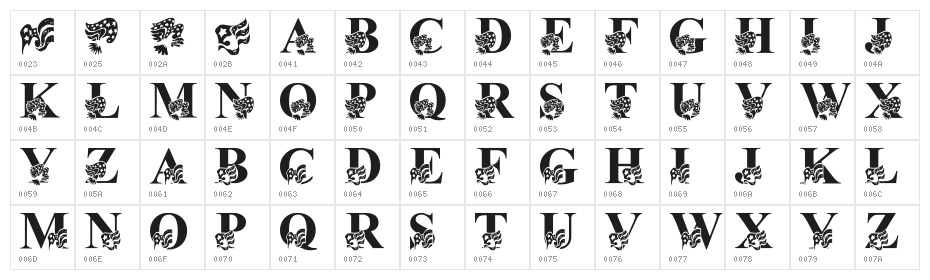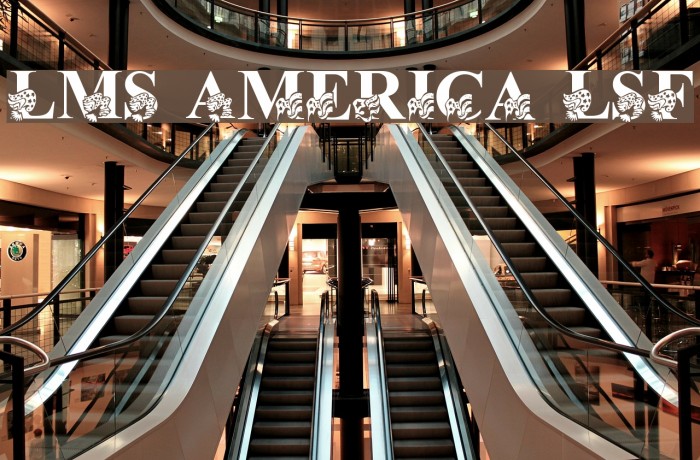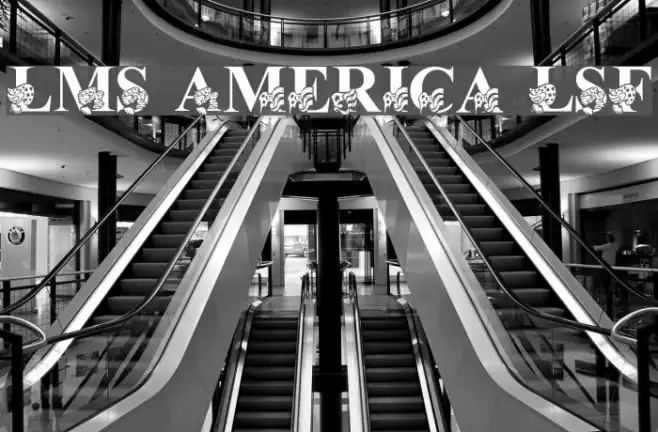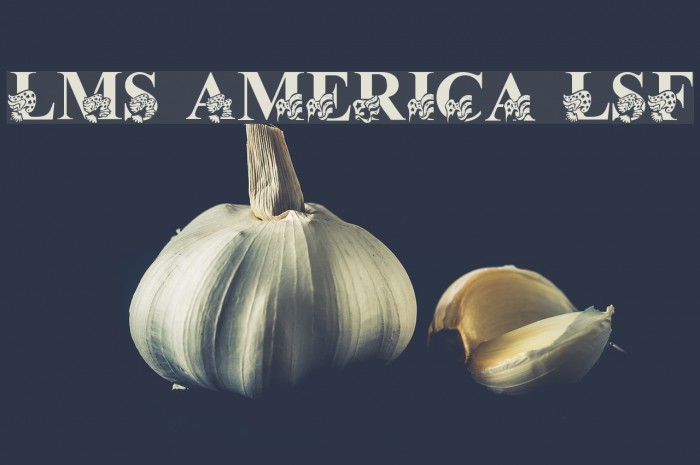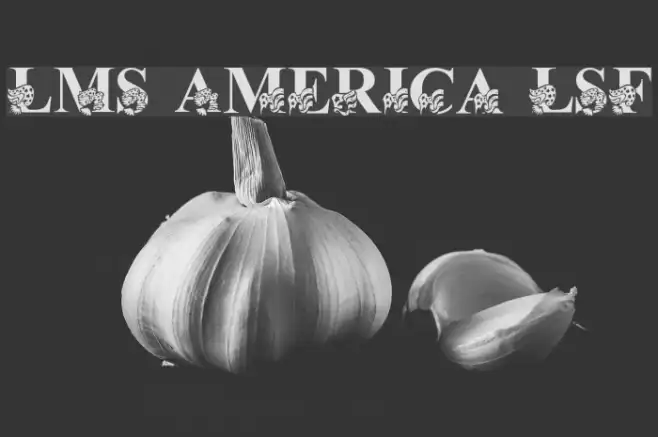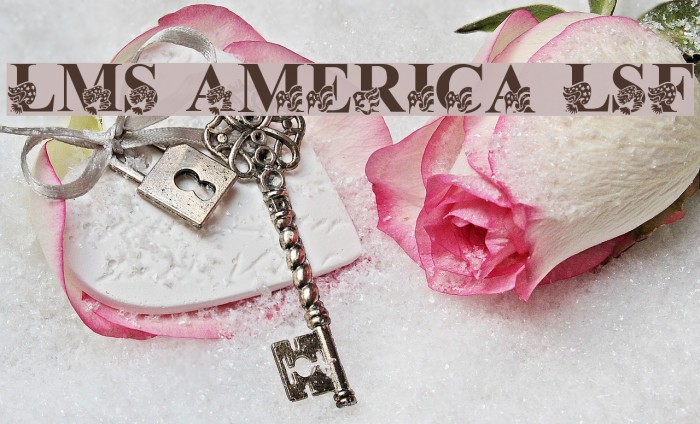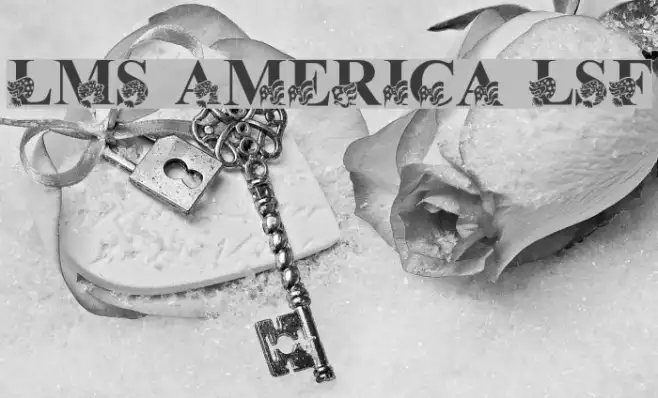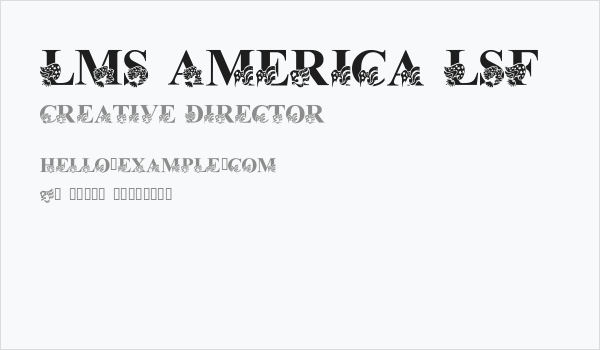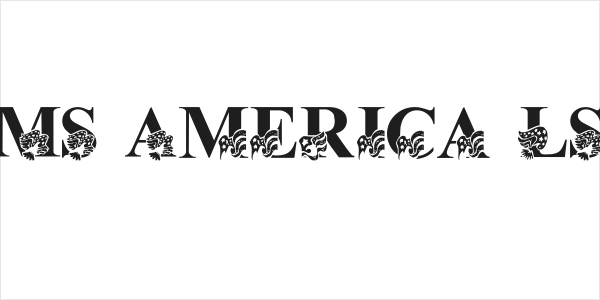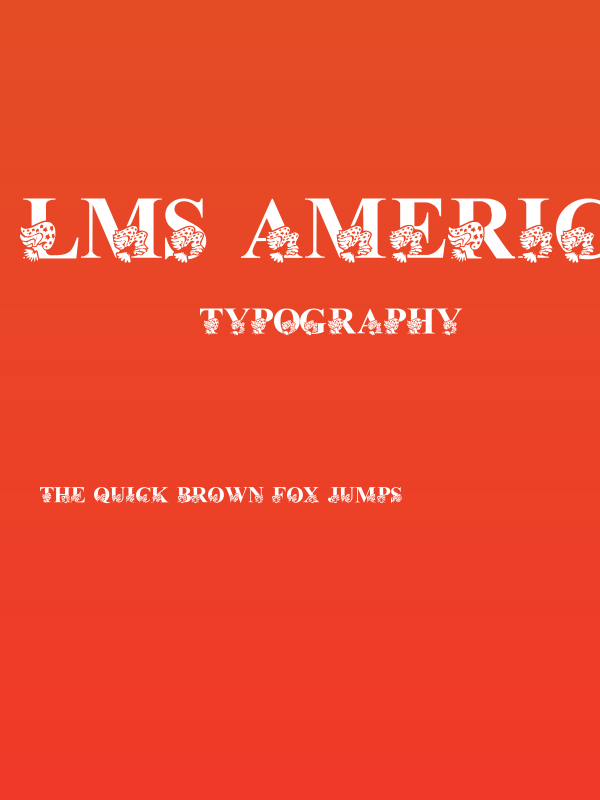
LMS America LSF Font
LMS America LSF Description
This font features a bold and decorative style with intricate patterns embedded within each letter. The uppercase letters are adorned with detailed, patriotic motifs that resemble elements of the American flag, such as stars and stripes. The design is highly ornamental, making it stand out with its unique and artistic flair. The characters are well-defined, with a strong presence that captures attention. The font's elaborate design is ideal for projects that require a touch of creativity and national pride.
Use CaseHeadlines, Posters, Branding
Proposed ProjectsIdeal for patriotic-themed posters, event invitations, and branding materials that require a bold and decorative touch.